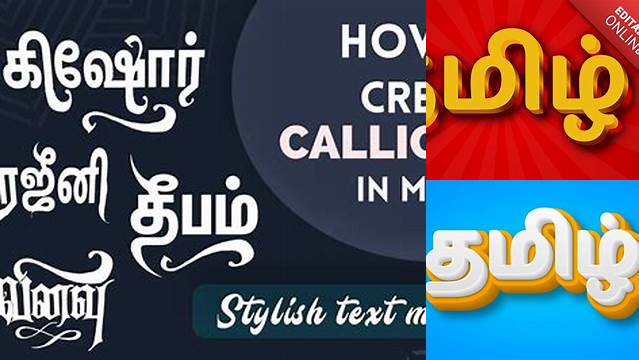
Hey guys! Ever felt like your Tamil text could use a little oomph? Like it needs to pop and grab attention? Well, you're in luck! We're diving deep into the world of Tamil stylish font generators and how you can snag them for free. Get ready to unleash your inner wordsmith and create some seriously eye-catching content. We'll explore everything from the basics of Tamil typography to the nitty-gritty of using these awesome tools. Let's get started, shall we?
What is a Tamil Stylish Font Generator?
So, what exactly is a Tamil stylish font generator? Think of it as your personal typography playground. It's a tool that allows you to transform plain Tamil text into something visually stunning. Tamil Stylish font generators come in various forms, from online platforms to downloadable software, each offering a range of unique fonts and styles. You can experiment with different letterforms, add decorative elements, and even customize the size and color of your text. These generators are super handy for creating everything from social media posts and invitations to logos and website designs. They empower you to express your creativity and add a personal touch to your Tamil writing. Whether you are looking to create a bold statement or a subtle aesthetic, these tools offer the flexibility to do so. They are particularly useful for those who do not have extensive design experience, making stylish Tamil typography accessible to everyone.
Why Use a Tamil Stylish Font Generator?
Why should you even bother with a Tamil Stylish font generator, you ask? Well, there are tons of reasons! First off, it's a fantastic way to make your text stand out. In a world saturated with information, grabbing attention is key. A stylish font can instantly elevate your message and make it more memorable. Think about it: a beautifully designed invitation is way more likely to catch your eye than a plain text one. Secondly, these generators offer a level of customization that's hard to achieve with standard fonts. You can tweak everything from the letter spacing to the overall aesthetic, ensuring your text perfectly reflects your brand or personal style. And let's not forget the convenience factor! Tamil stylish font generators are often incredibly user-friendly, even for those who aren't design pros. They allow you to experiment and create stunning visuals without needing to hire a graphic designer. Using a font generator can also save a significant amount of time, especially when dealing with multiple projects or variations of text. The ability to preview and adjust fonts in real-time makes the design process more efficient and enjoyable.
Benefits of Using Free Tamil Font Generators
The best part? Many Tamil stylish font generators are available for free! This opens up a world of possibilities for anyone on a budget. You can access a wide array of fonts and styles without spending a dime. This is especially beneficial for students, small business owners, or anyone just starting out with design. Free generators often come with a surprising amount of features, allowing you to create professional-looking designs without the hefty price tag. Plus, they're a great way to experiment and find your style without any financial commitment. It’s like having a free pass to a typography buffet! The availability of these free tools democratizes design, making it accessible to a broader audience. This fosters creativity and innovation, as more individuals can express themselves visually without financial barriers. Free font generators can also serve as a valuable learning resource, helping users understand typography principles and develop their design skills.
How to Choose the Right Tamil Stylish Font
Okay, so you're ready to dive into the world of Tamil stylish fonts. But with so many options, how do you choose the right one? First, consider the context. What are you using the font for? A formal invitation calls for a different style than a casual social media post. Think about the message you want to convey. Do you want your text to appear elegant, playful, bold, or classic? Each font has its own personality, so choose one that aligns with your message and brand. Don't be afraid to experiment! Try out different fonts and see what resonates with you. Look at examples of designs you admire and pay attention to the fonts they use. And most importantly, ensure the font is legible. A stylish font is useless if people can't read it. Readability should always be a top priority, especially in longer texts or when targeting a wide audience. Factors like letter spacing, font size, and contrast with the background play crucial roles in readability. It is often beneficial to test the chosen font across various devices and screen sizes to ensure optimal legibility.
Top Free Tamil Stylish Font Generator Websites